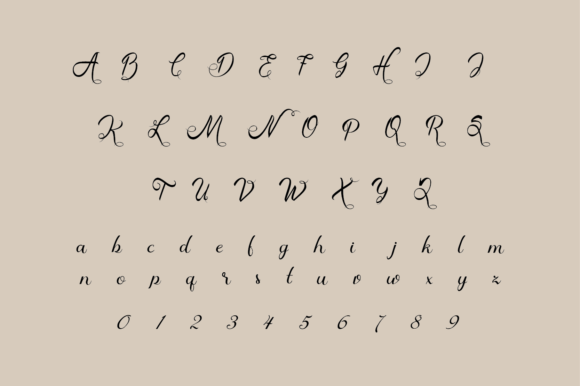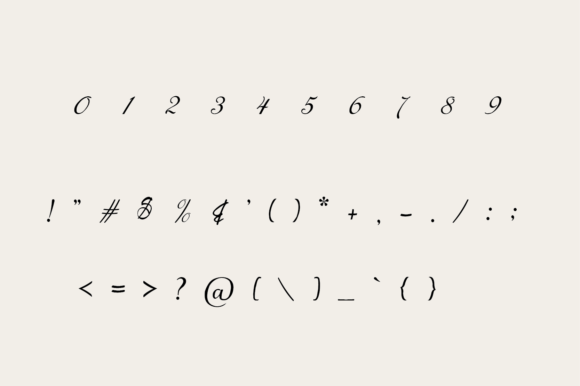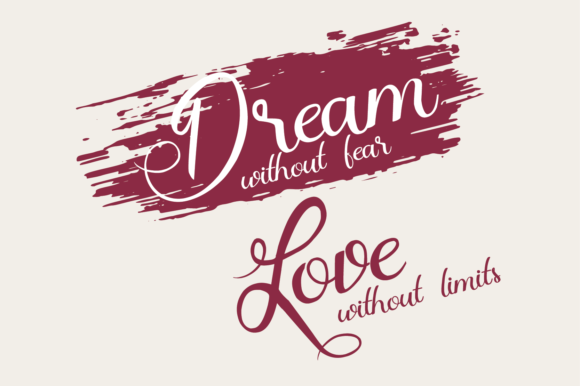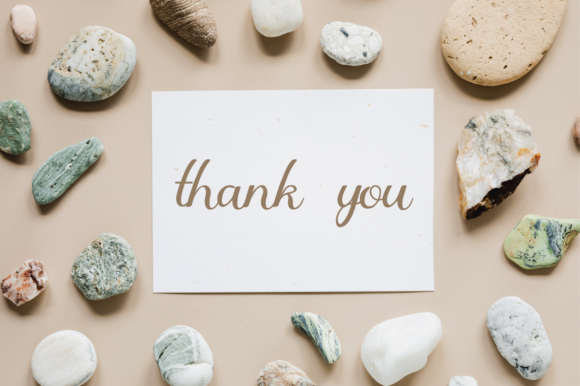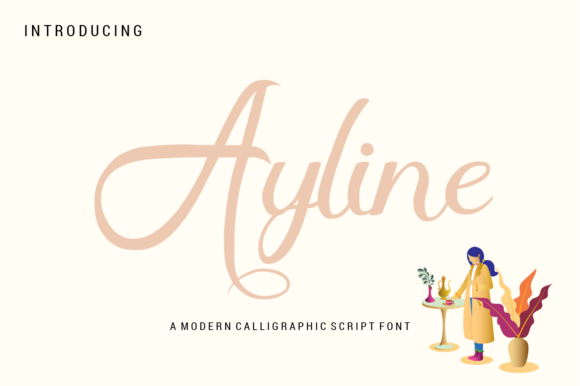
Ayline Font: Elevate Your Designs with Elegance and Sophistication
Are you tired of using the same old fonts in your designs? Look no further than Ayline, an exquisite handwritten font that is sure to become your new favorite. With its classy calligraphic influences and contemporary feel, Ayline is the perfect choice for designers and crafters looking to add a touch of elegance and sophistication to their projects.
The Story Behind Ayline
Ayline is a masterfully designed font that combines traditional calligraphic techniques with modern sensibilities. The result is a font that feels both timeless and fresh, perfect for a wide range of design applications. Whether you’re working on a wedding invitation, a branding project, or a craft tutorial, Ayline is sure to impress.
What Makes Ayline So Special?
So, what sets Ayline apart from other fonts? Here are just a few of its standout features:
- Classy Calligraphic Influences: Ayline’s roots in traditional calligraphy give it a level of sophistication and elegance that’s hard to find in other fonts.
- Contemporary Feel: Despite its classic influences, Ayline feels fresh and modern, making it perfect for designers who want to create something new and exciting.
- Versatility: Ayline is a highly versatile font that can be used in a wide range of design applications, from elegant wedding invitations to bold branding projects.
- Easy to Read: Ayline is not only beautiful, but also highly legible, making it perfect for designs that require a clear and easy-to-read font.
How to Use Ayline in Your Designs
Ready to fall in love with Ayline and bring your projects to the highest levels? Here are a few tips for incorporating Ayline into your designs:
- Pair it with Bold Colors: Ayline looks stunning paired with bold, bright colors. Try pairing it with a deep berry shade or a rich gold for a truly luxurious look.
- Use it for Headings: Ayline’s elegant feel makes it perfect for headings and titles. Use it to add a touch of sophistication to your designs.
- Mix it with Other Fonts: Ayline pairs well with a wide range of fonts, from bold sans-serifs to elegant scripts. Experiment with different pairings to find the one that works best for your design.
Ayline in the World of Crafting
Ayline is not just a font for designers – it’s also a great tool for crafters. Whether you’re creating handmade cards, scrapbooking, or working on a craft tutorial, Ayline can add a touch of elegance and sophistication to your projects.
- Handmade Cards: Use Ayline to create beautiful, one-of-a-kind handmade cards for special occasions.
- Scrapbooking: Add a touch of elegance to your scrapbooking projects with Ayline. It’s perfect for journaling, titles, and other design elements.
- Craft Tutorials: Use Ayline to create beautiful and easy-to-follow craft tutorials. Its clear and legible feel makes it perfect for instructional text.
In conclusion, Ayline is an exquisite handwritten font that is sure to become a favorite among designers and crafters. With its classy calligraphic influences, contemporary feel, and versatility, Ayline is the perfect choice for anyone looking to add a touch of elegance and sophistication to their projects. So why wait? Fall in love with Ayline and bring your designs to the highest levels!